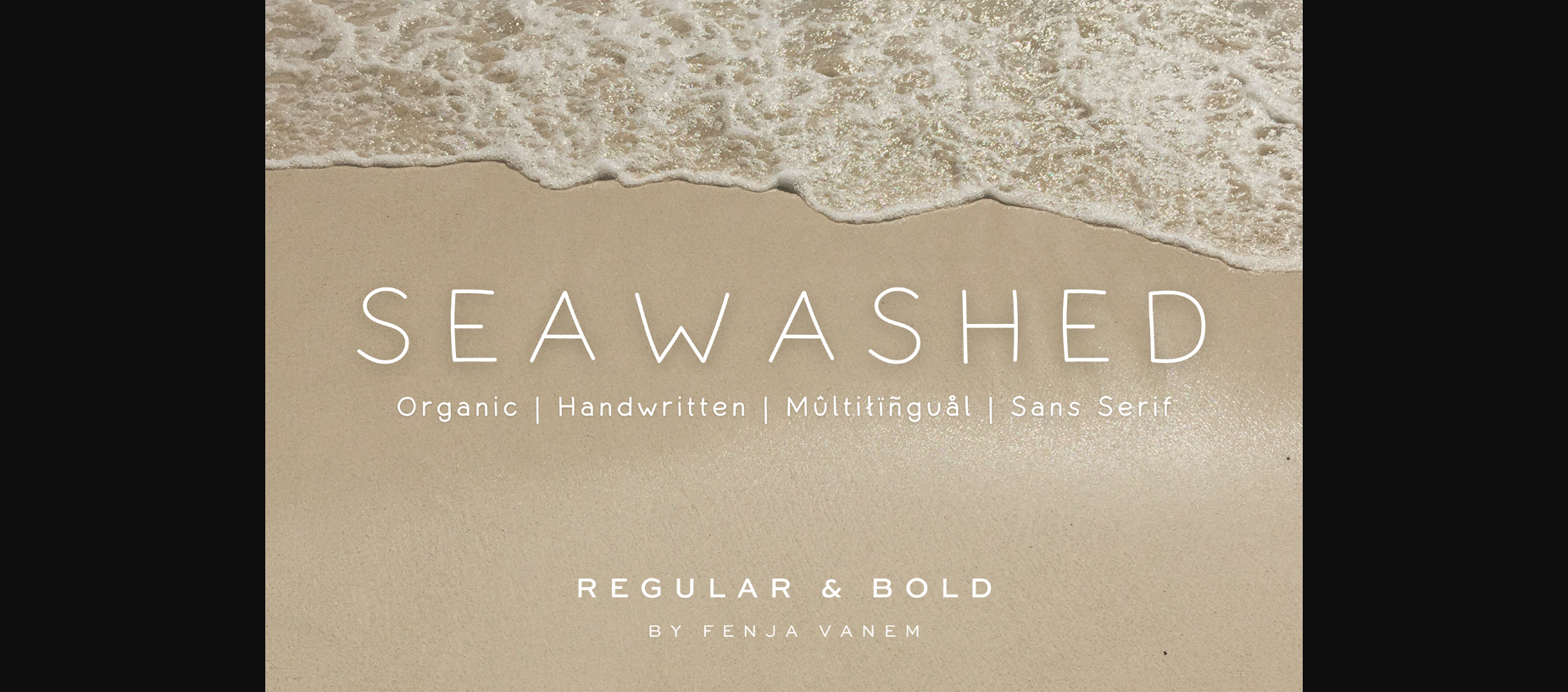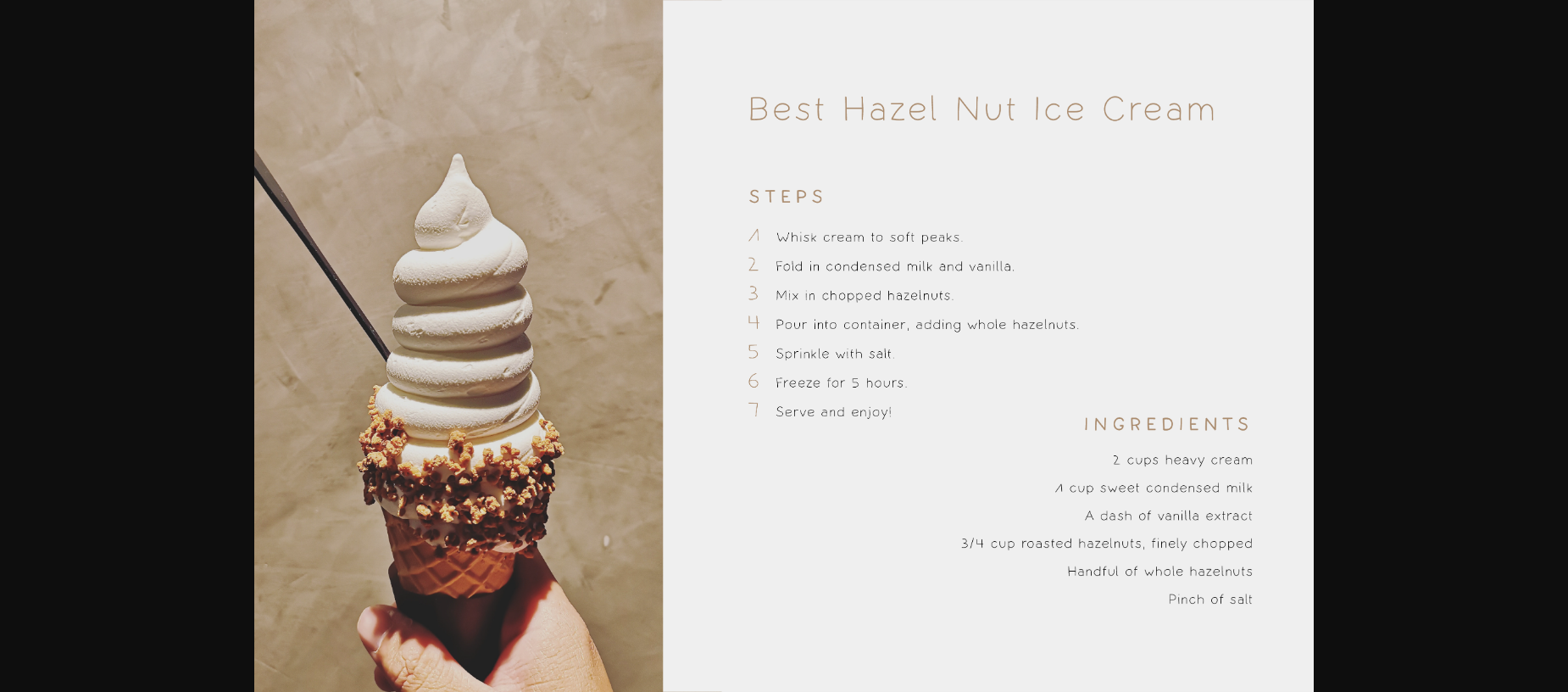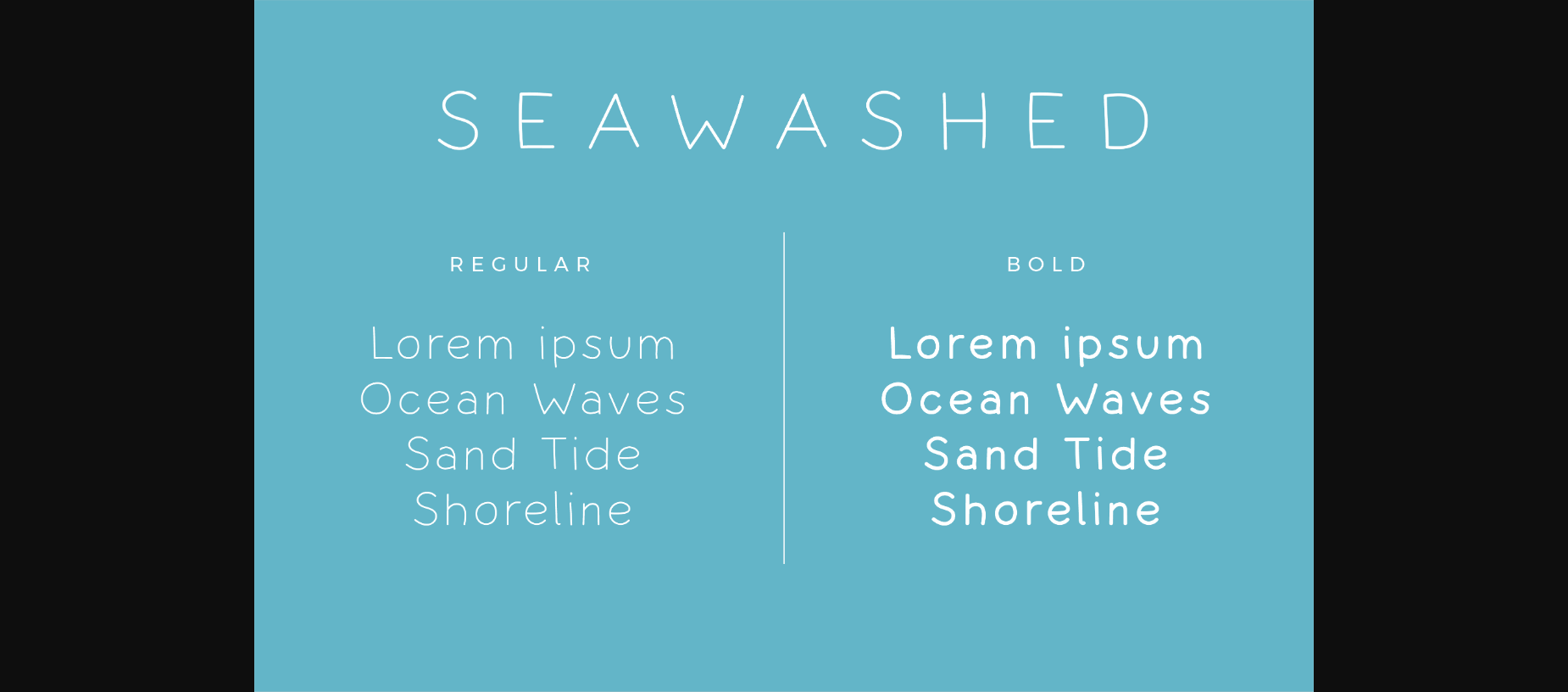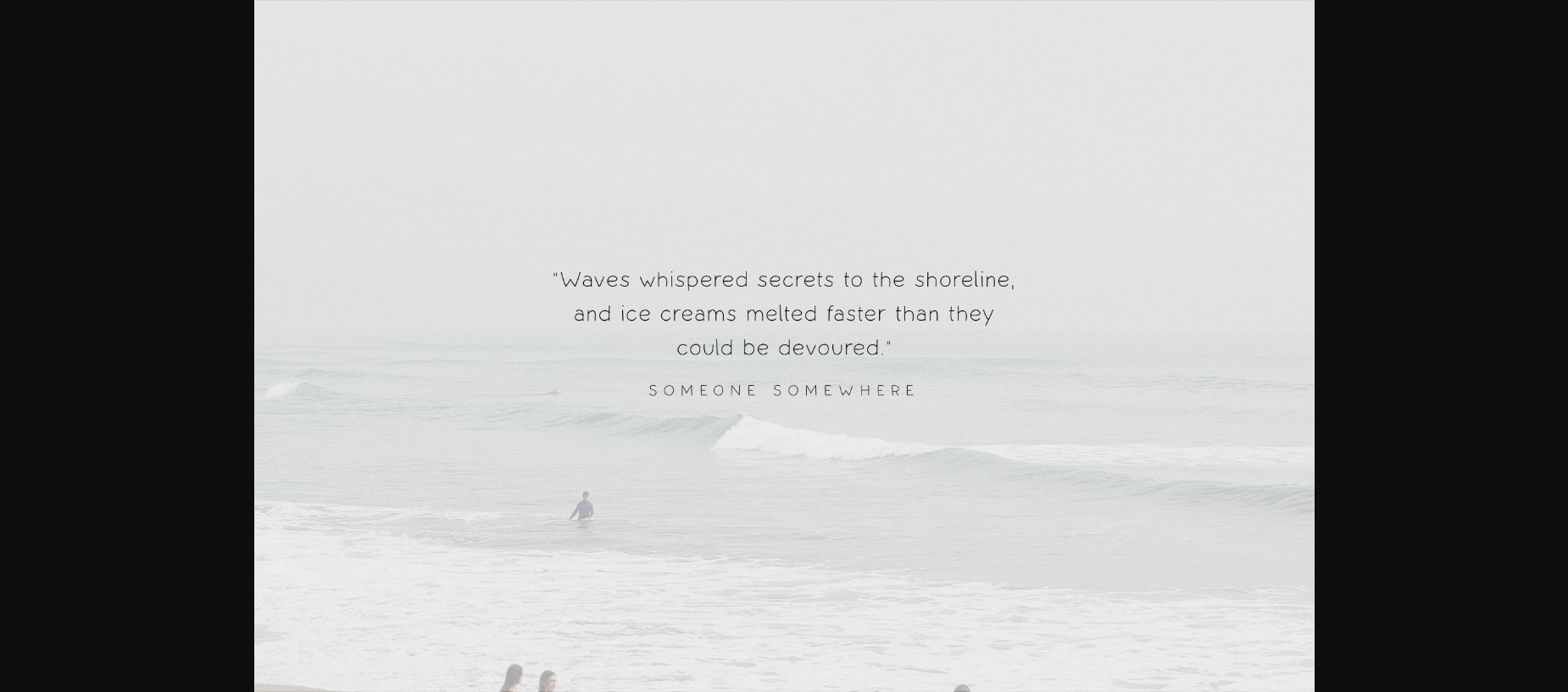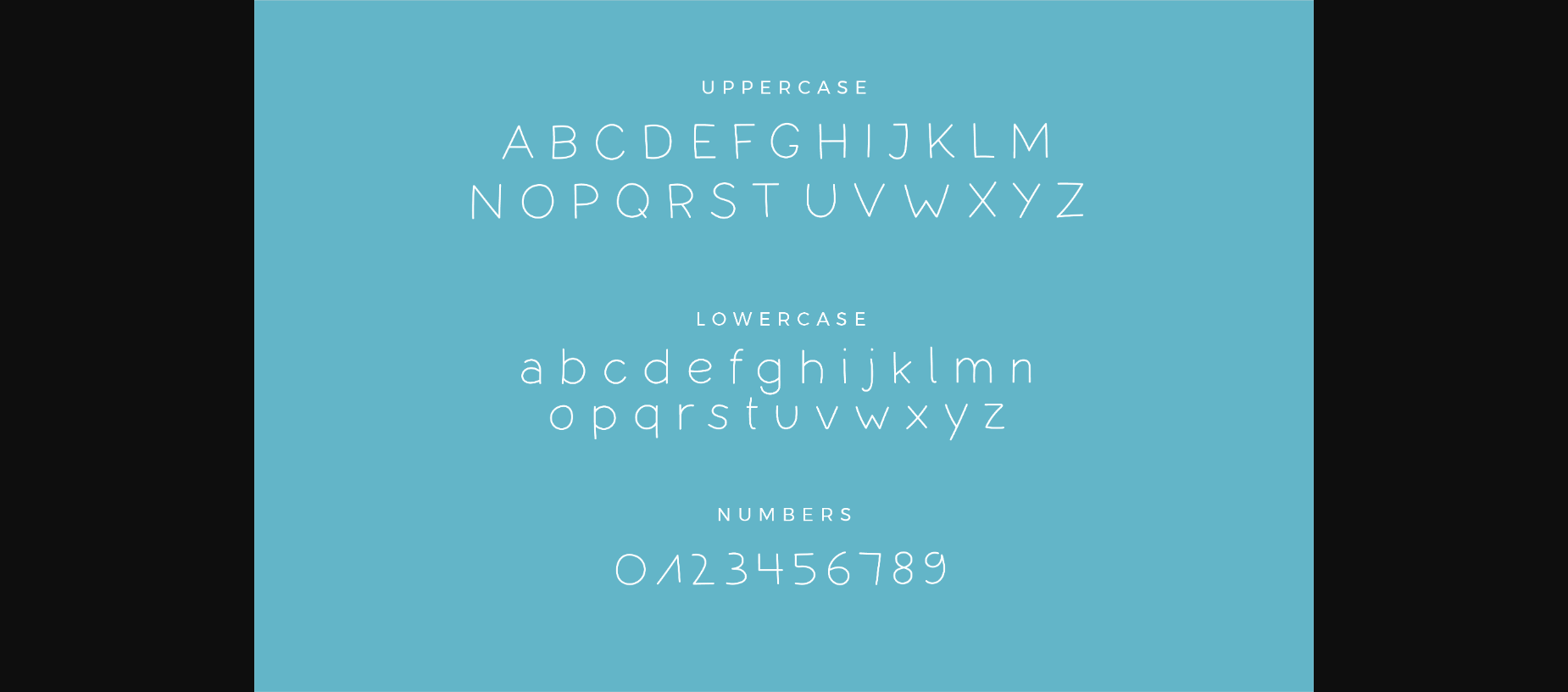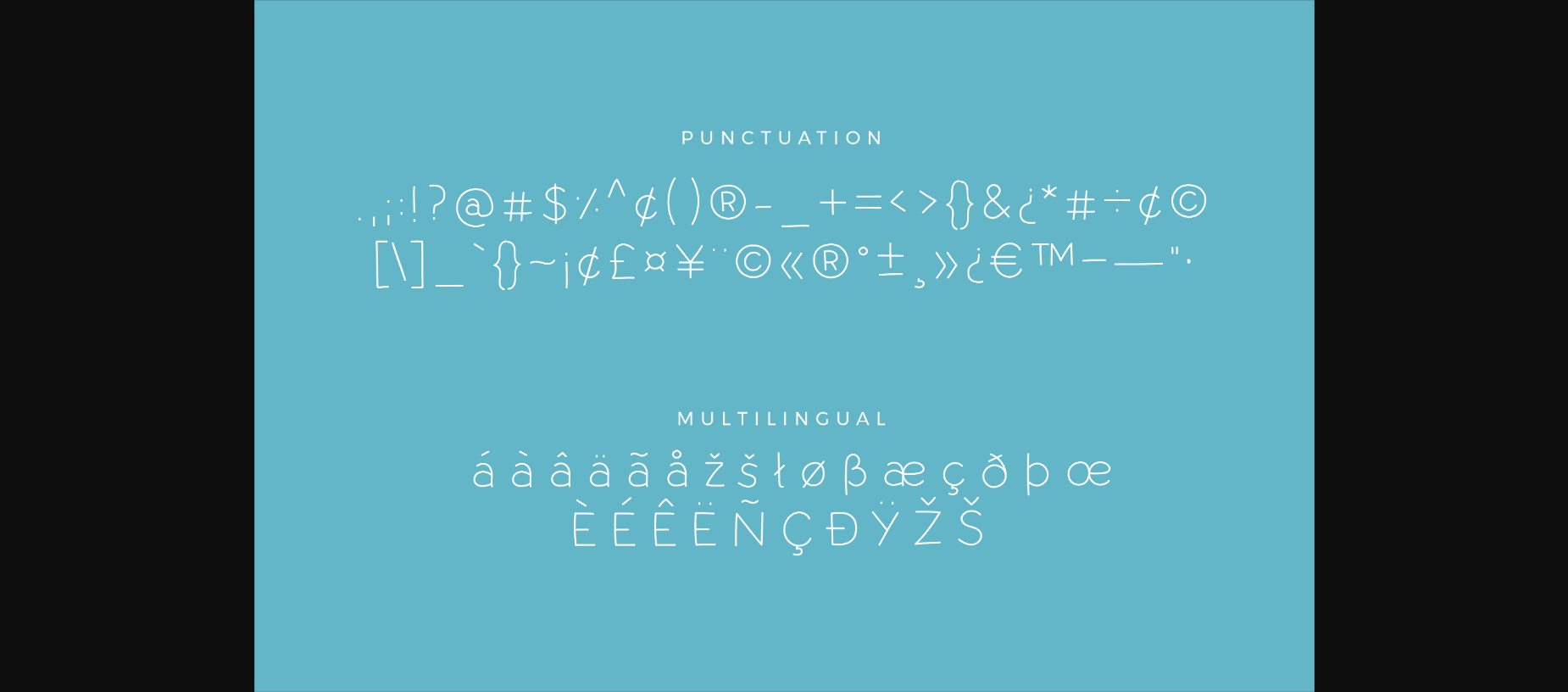
Seawashed Font
About Seawashed Font
Introducing ‘Seawashed’ – where the simple elegance of sans serif meets the personal touch of handcrafted design. This font gently ebbs and flows with its regular, yet unmistakably hand-drawn characters. The essence of Seawashed lies in its dainty appearance, evoking the delicate traces left by waves retreating from the sand.